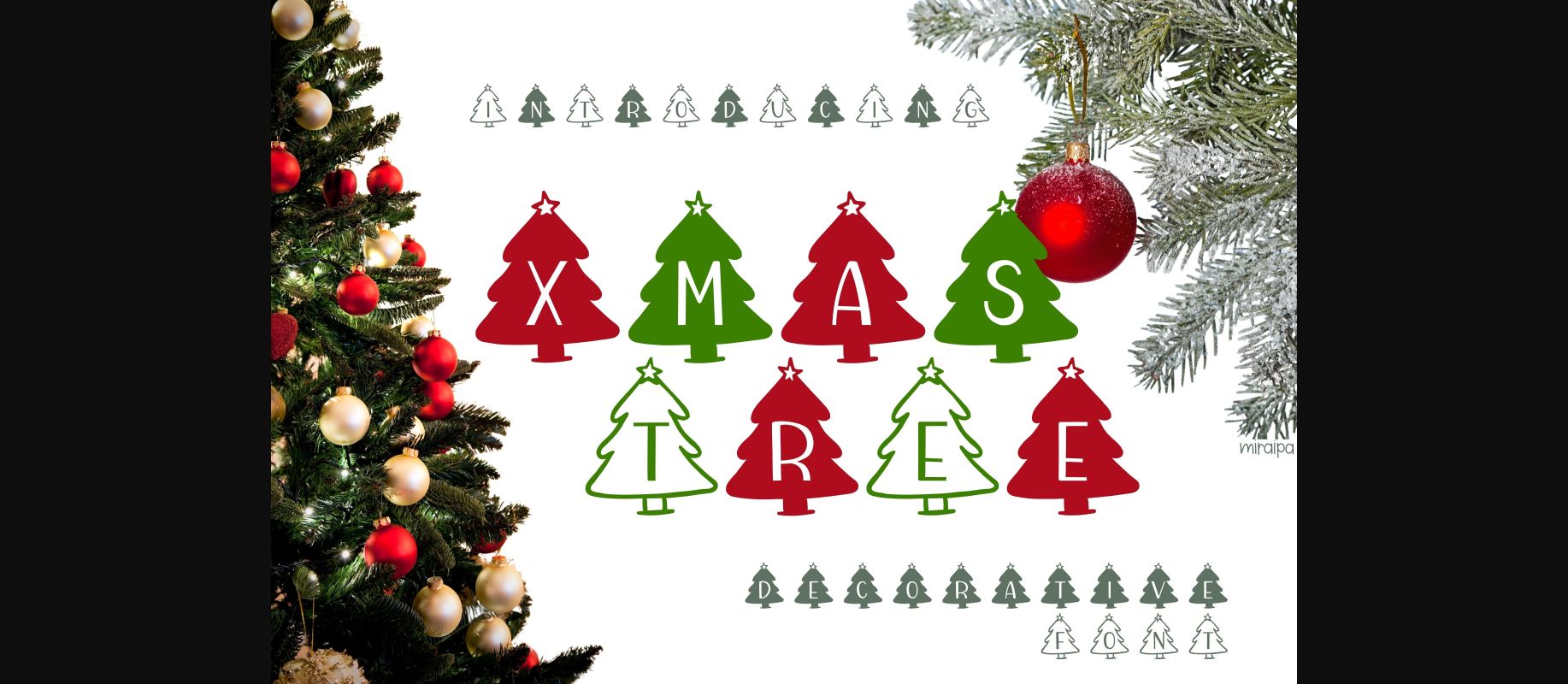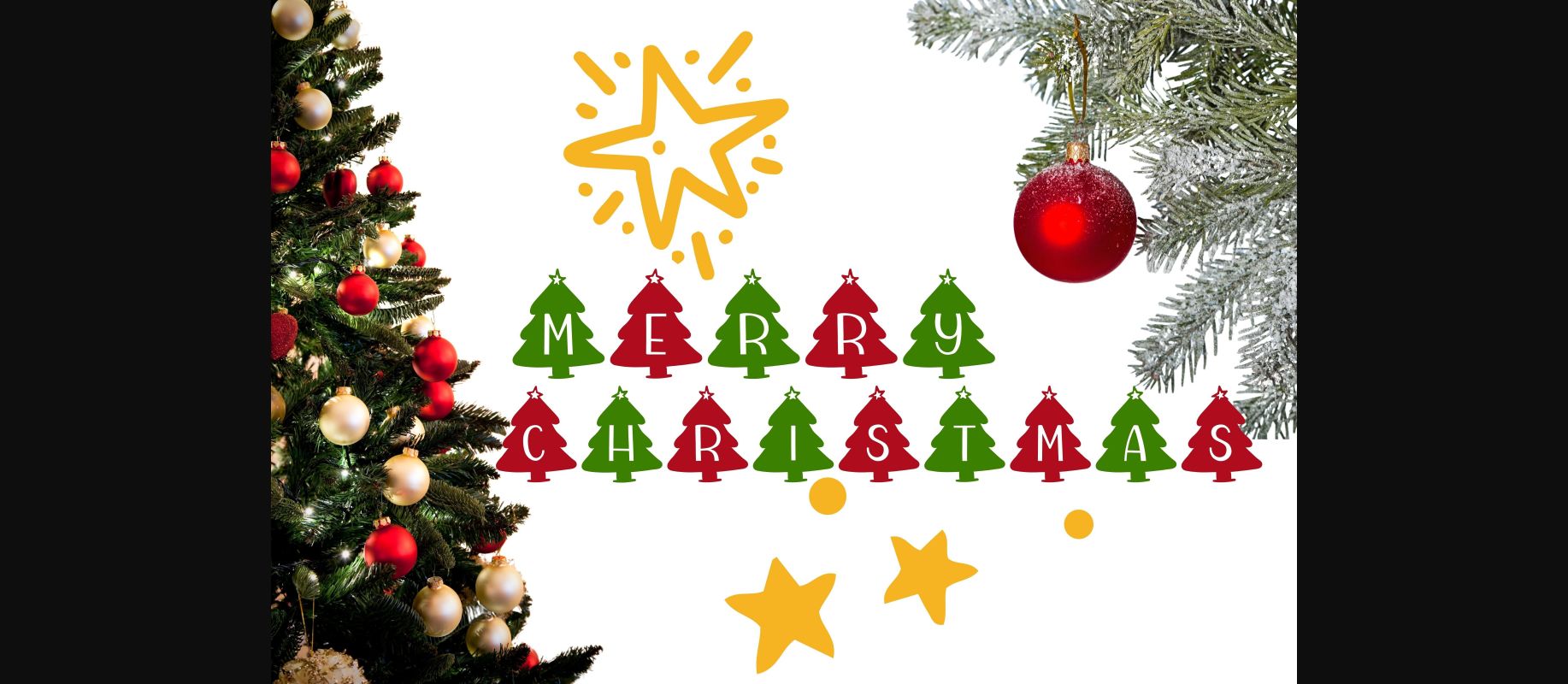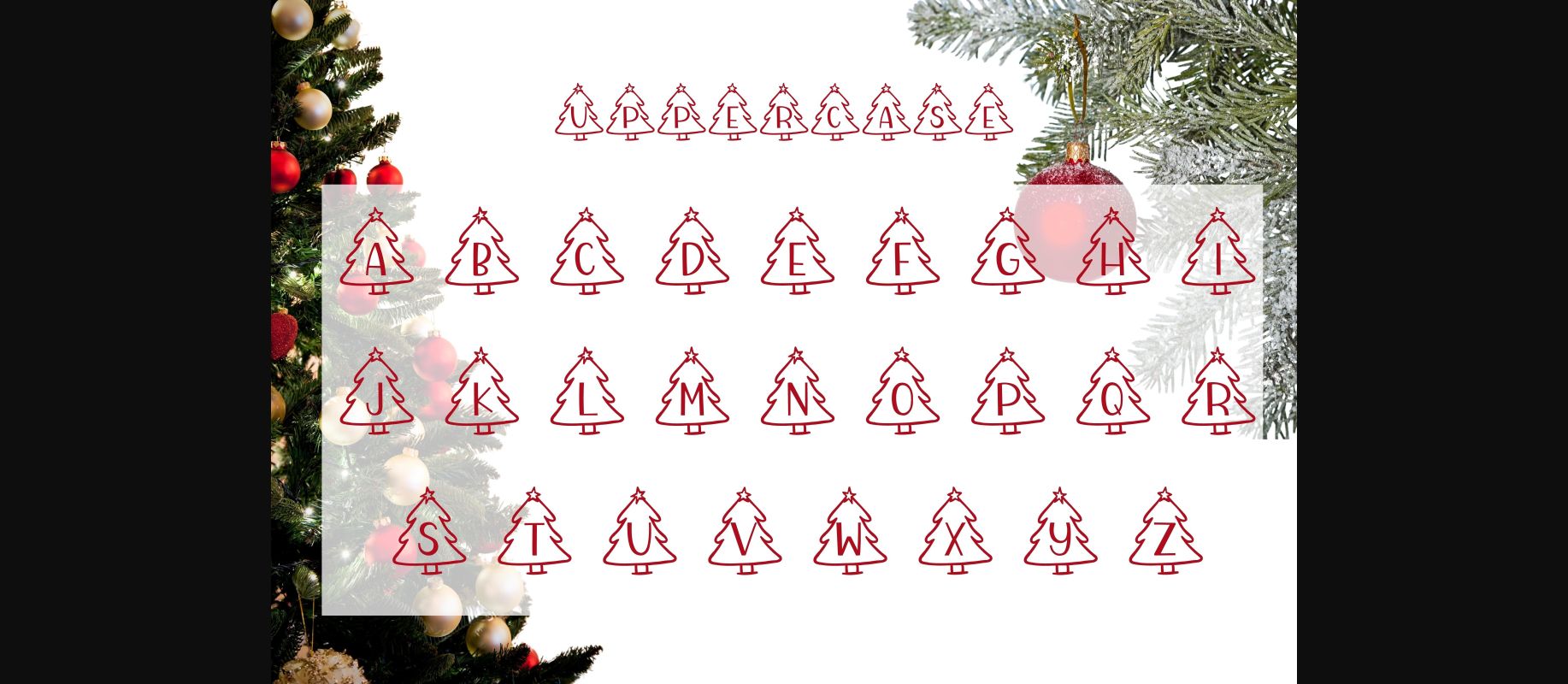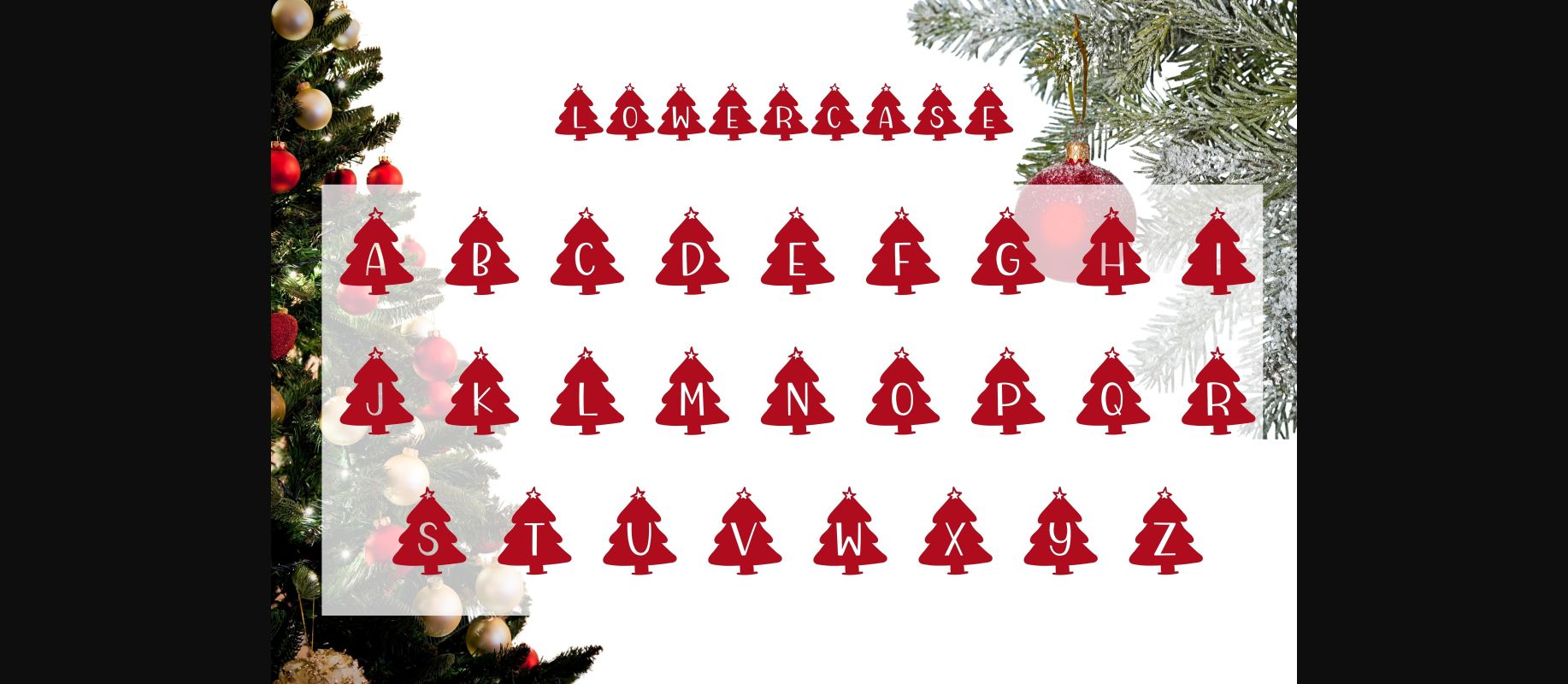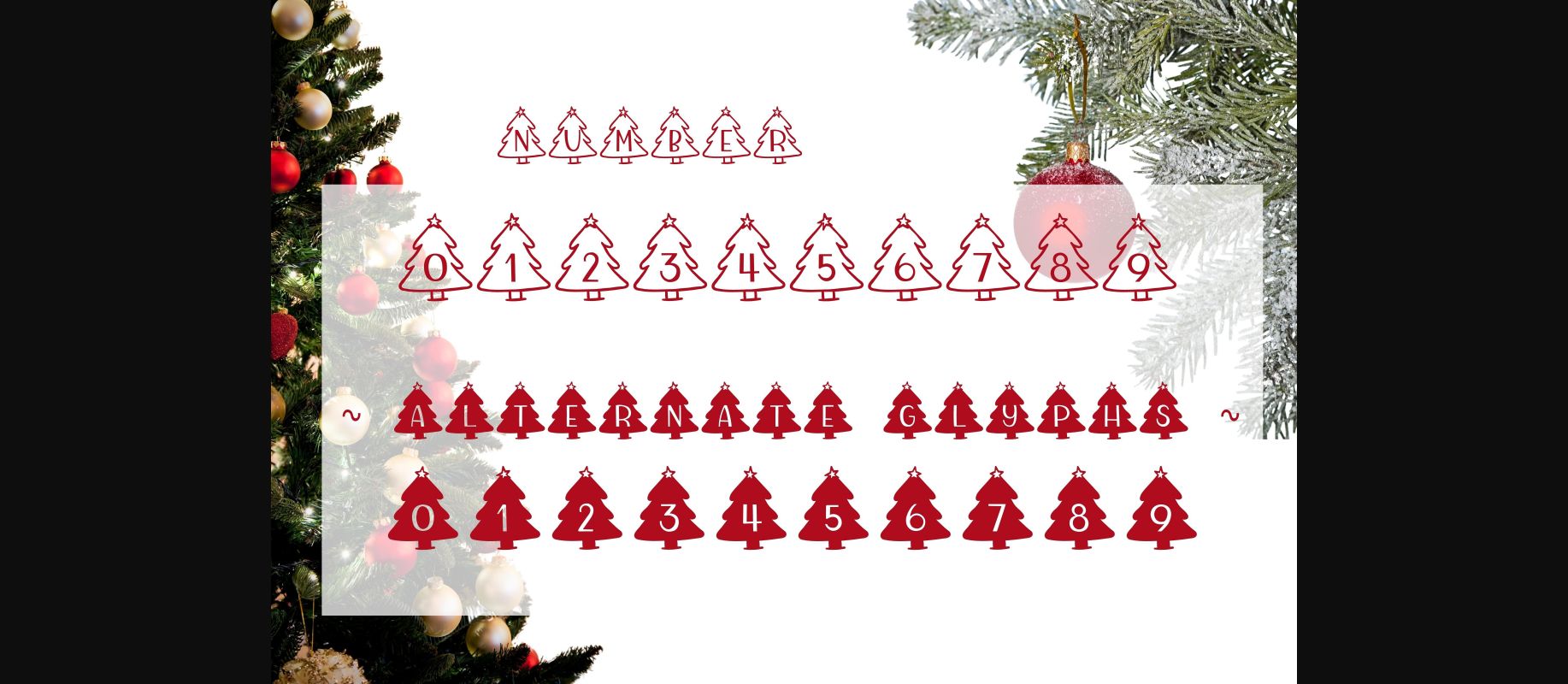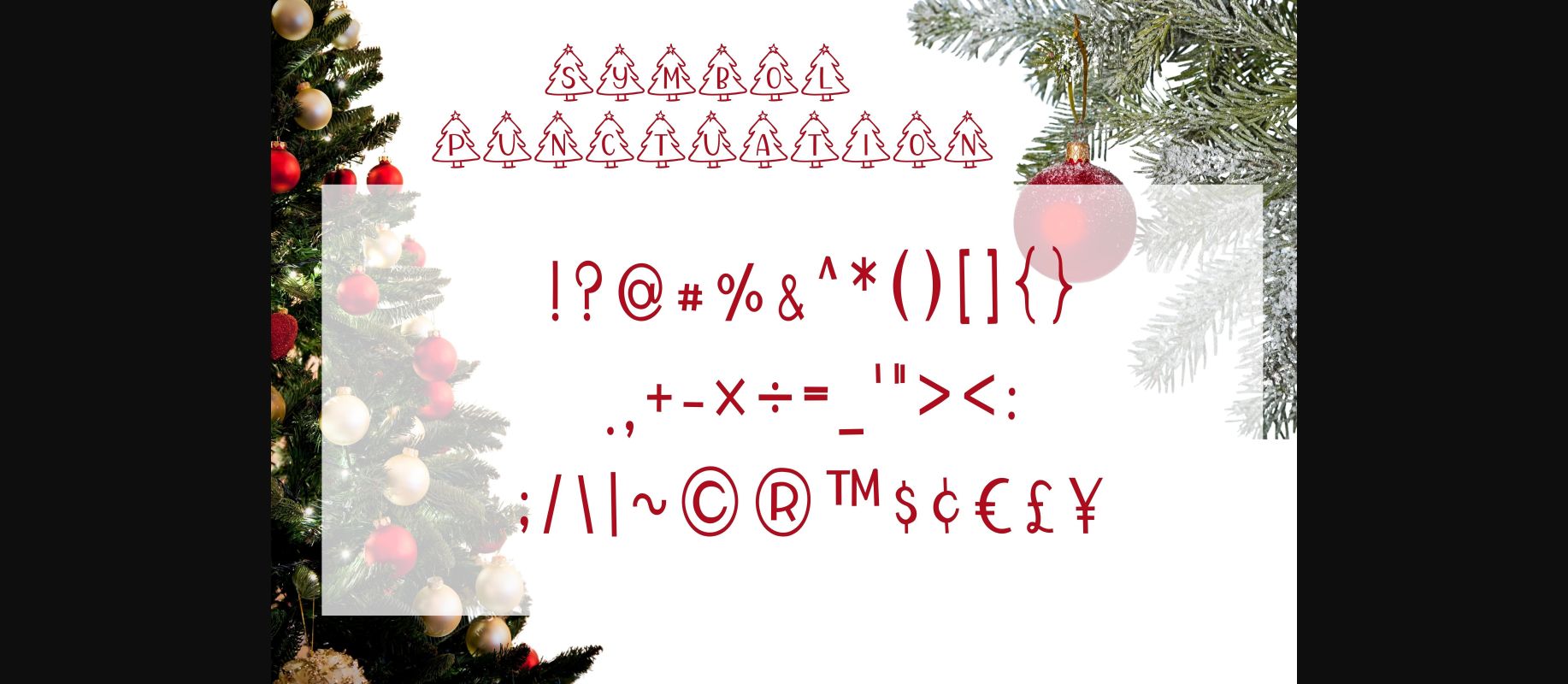
HomeDecorative FontsXmas Tree Font Decorative Fonts Xmas Tree Font FacebookXPinterestWhatsApp 1 of 9 ... Xmas Tree Font Poster 2... Xmas Tree Font Poster 3... Xmas Tree Font Poster 4... Xmas Tree Font Poster 5... Xmas Tree Font Poster 6... Xmas Tree Font Poster 7... Xmas Tree Font Poster 8... Xmas Tree Font Poster 9... About Xmas Tree Font Xmas Tree is a decorative font with a cute, festive touch. Add it to your Christmas-themed projects and you will definitely impress your audience. DOWNLOAD NOW People also explored Slickstyle Font Candle Egg Font Dulce Boy Font Tumbler Font Rushine Font Chelistine Font Flowers Font Kareem Font Winter Wonderland Font 424 0 TagsXmas Tree Font Previous articleSnowflake FontNext articleGhost Town Font LEAVE A REPLY Cancel reply Comment: Please enter your comment! Name:* Please enter your name here Email:* You have entered an incorrect email address! Please enter your email address here Website: Save my name, email, and website in this browser for the next time I comment. Personal Use Free Multicolore Personal Use Free Read more about this font Dr.Marz Personal Use Free Read more about this font Special Day Personal Use Free Read more about this font Ayam Bakar Personal Use Free Read more about this font BLOG To increase your work productivity, choose the most readable fonts. In today's fast-paced work environment, where digital communication and information consumption are integral to our daily routines, the choice of fonts can significantly impact... How to Cut Any Font on Cricut: Convert a Font to SVG (Free) How to Install and Use Fonts on Windows, macOS, and Web Projects 5 Fonts That Will Dominate Design Trends in 2026